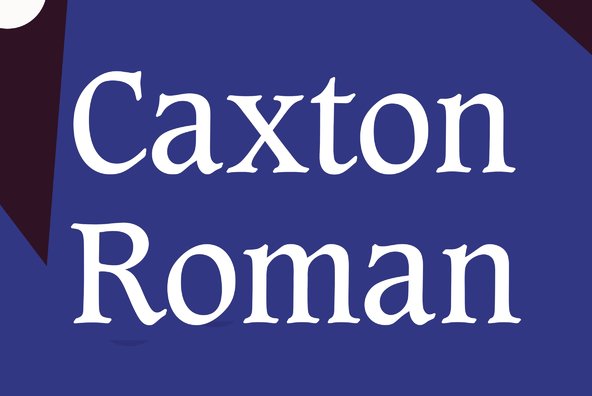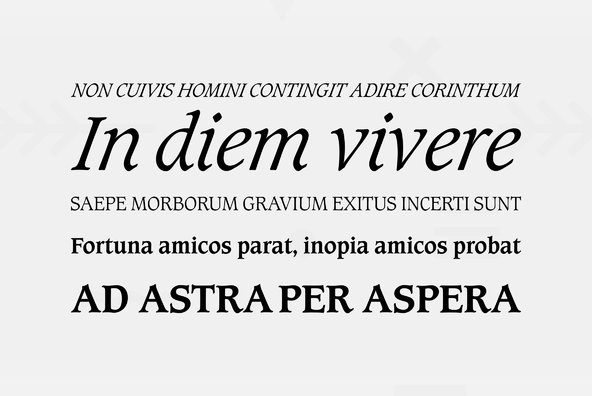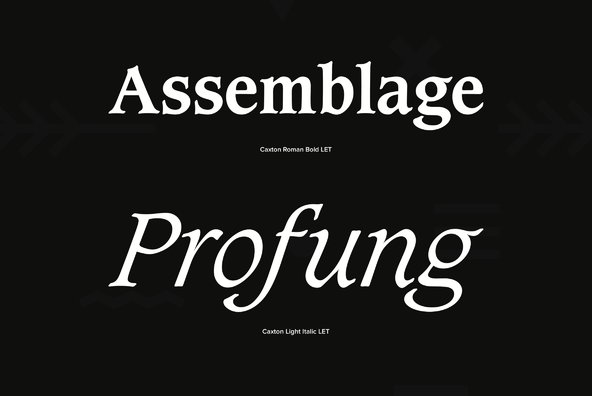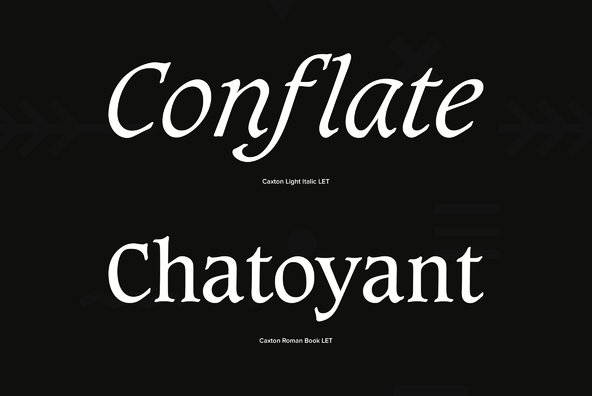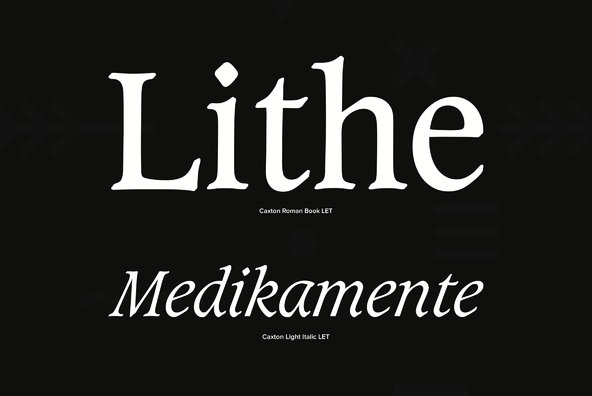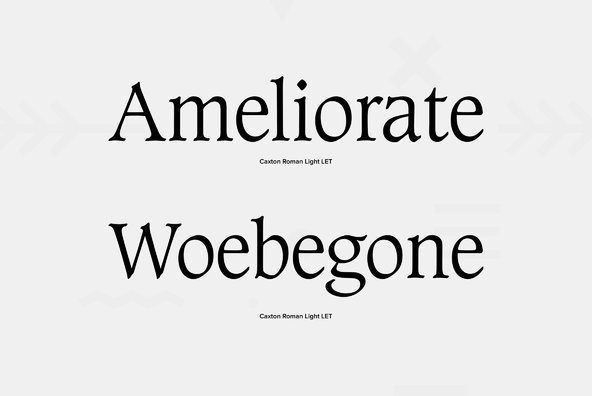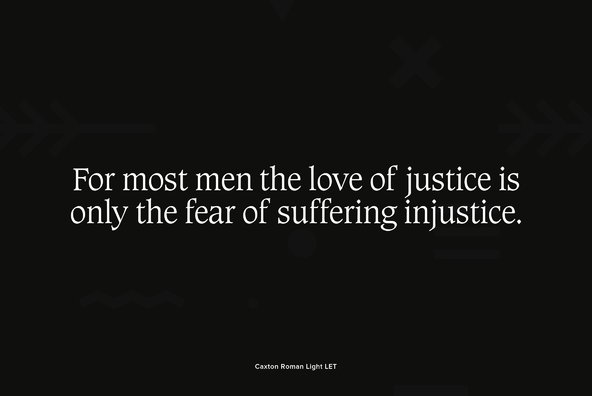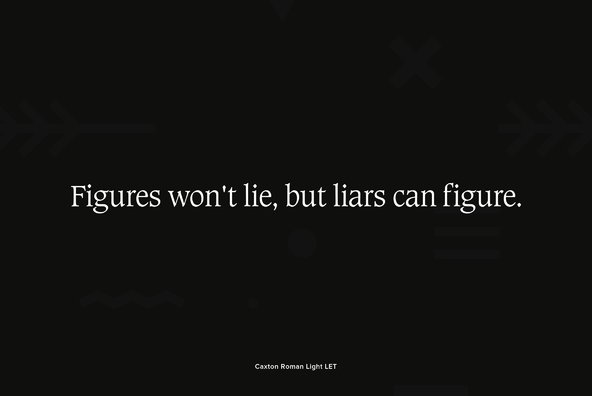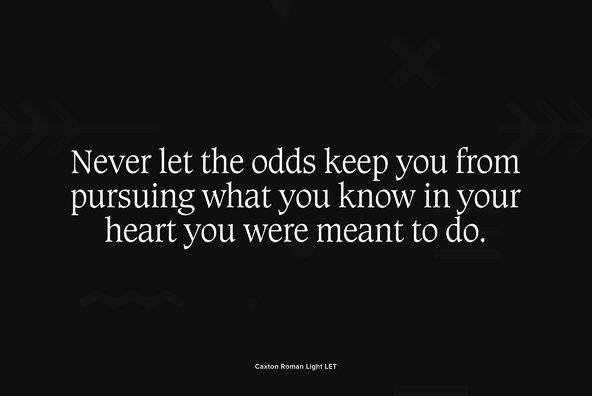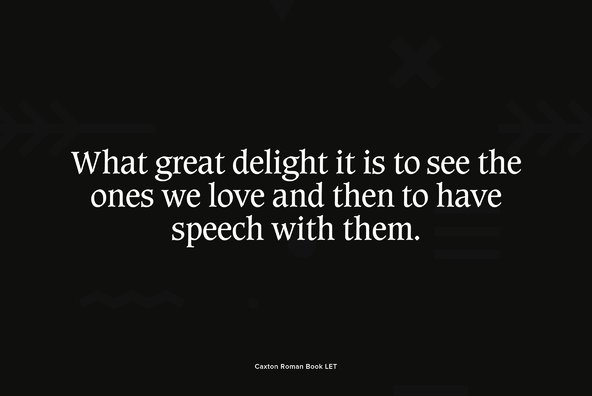
Caxton Roman
The popular Caxton series was designed by the late Leslie Usherwood, one of Canada's leading typographers and type designers. The successful combination of soft features and calligraphic overtones results in a unique and elegant style suitable for widespread use in both text and display sizes.